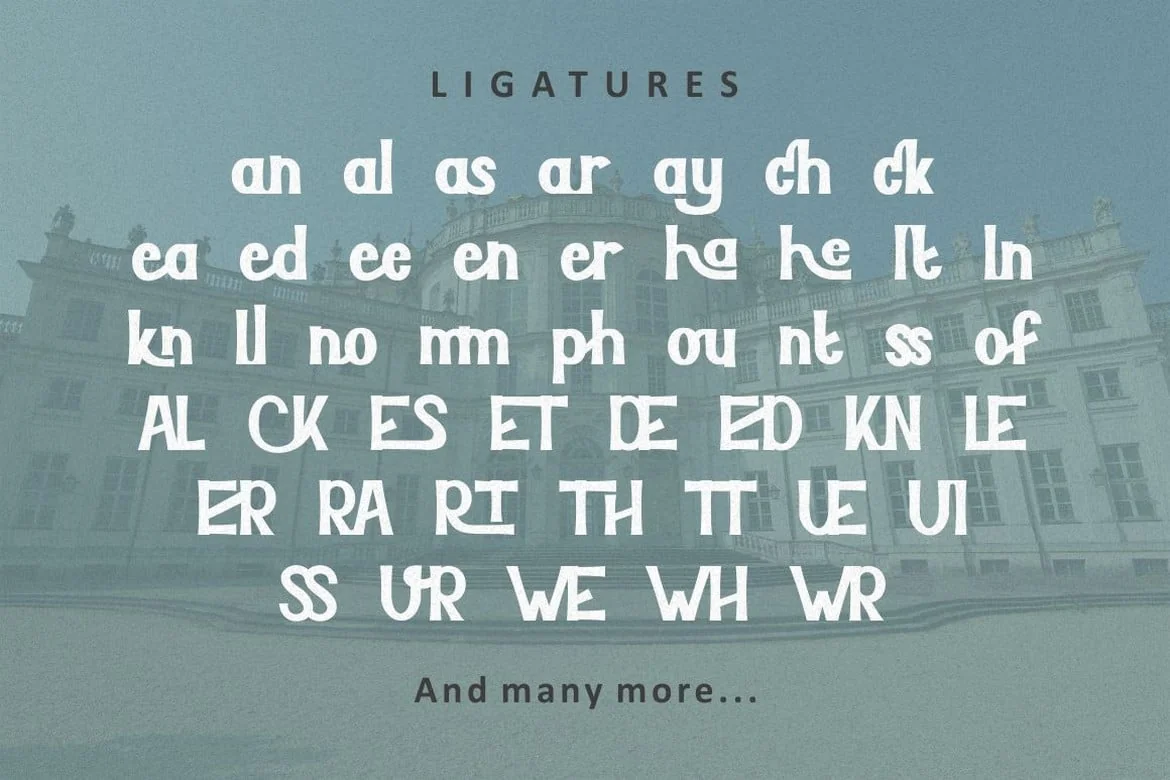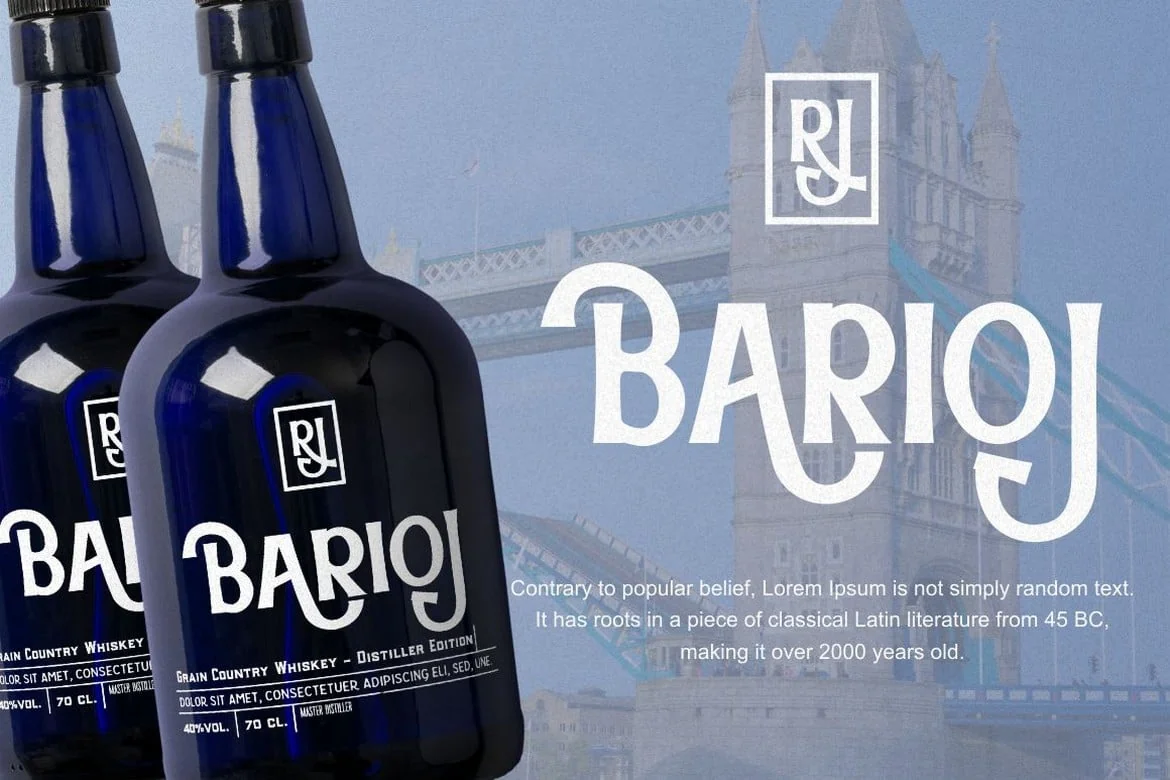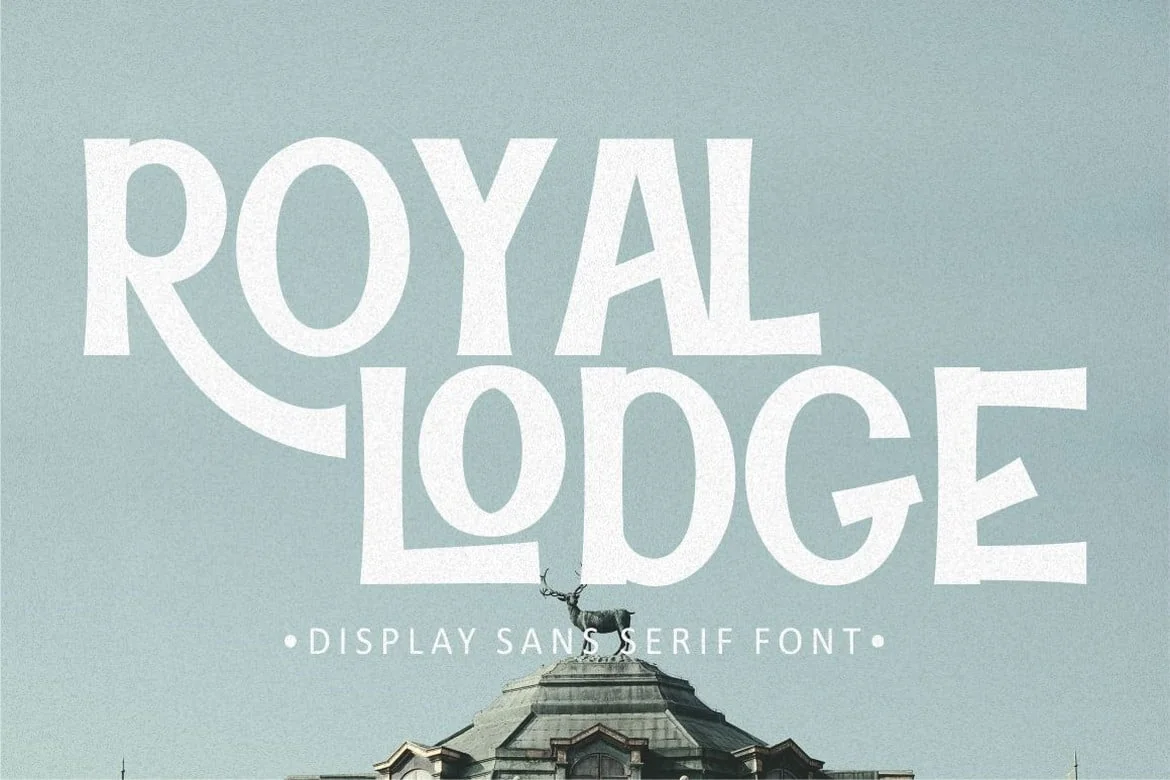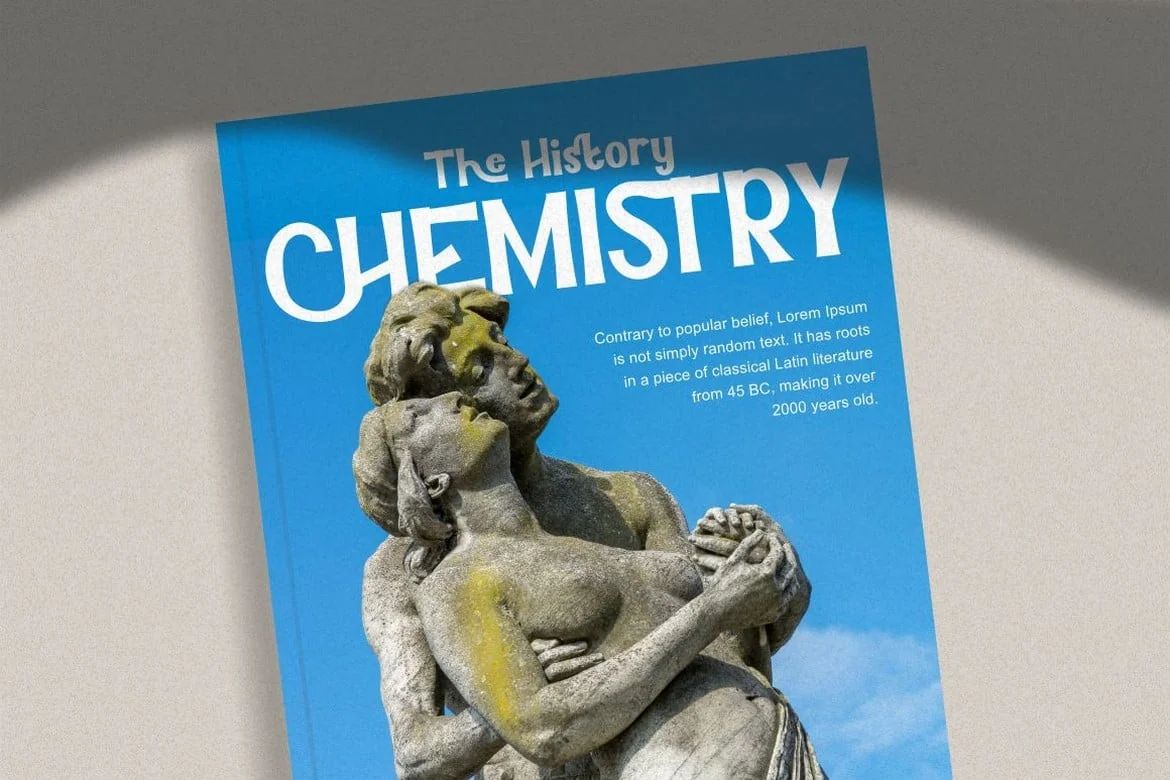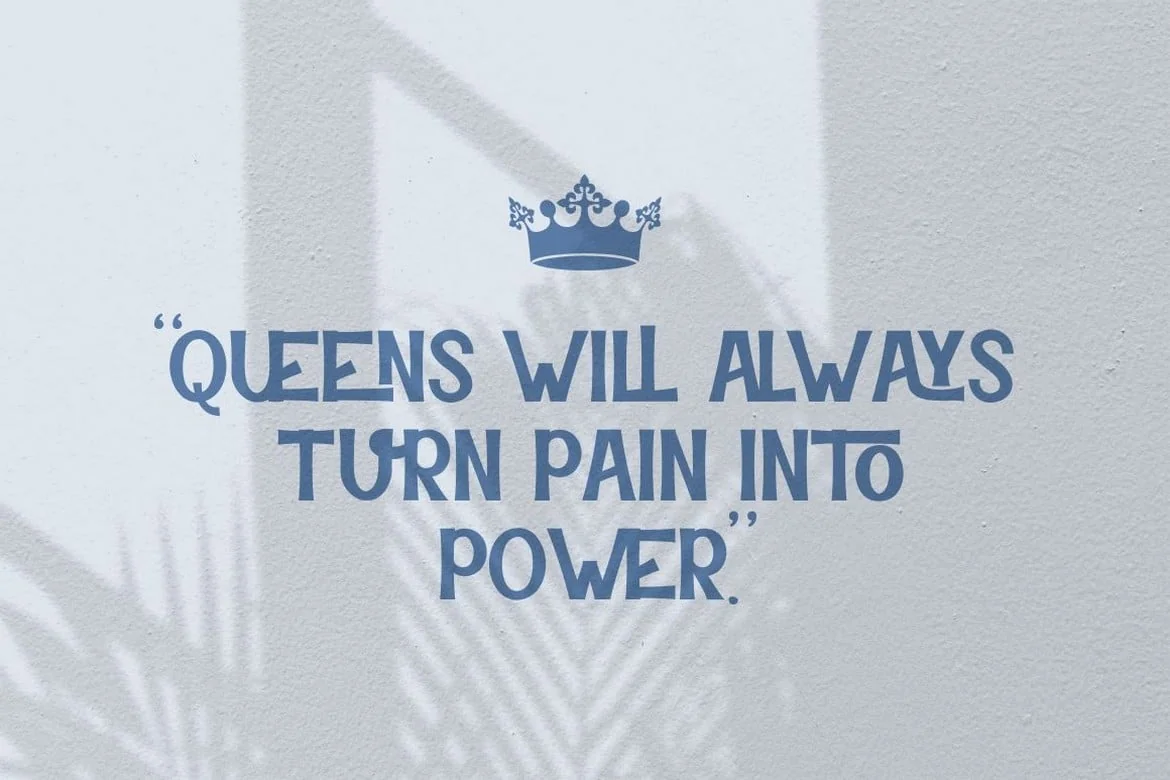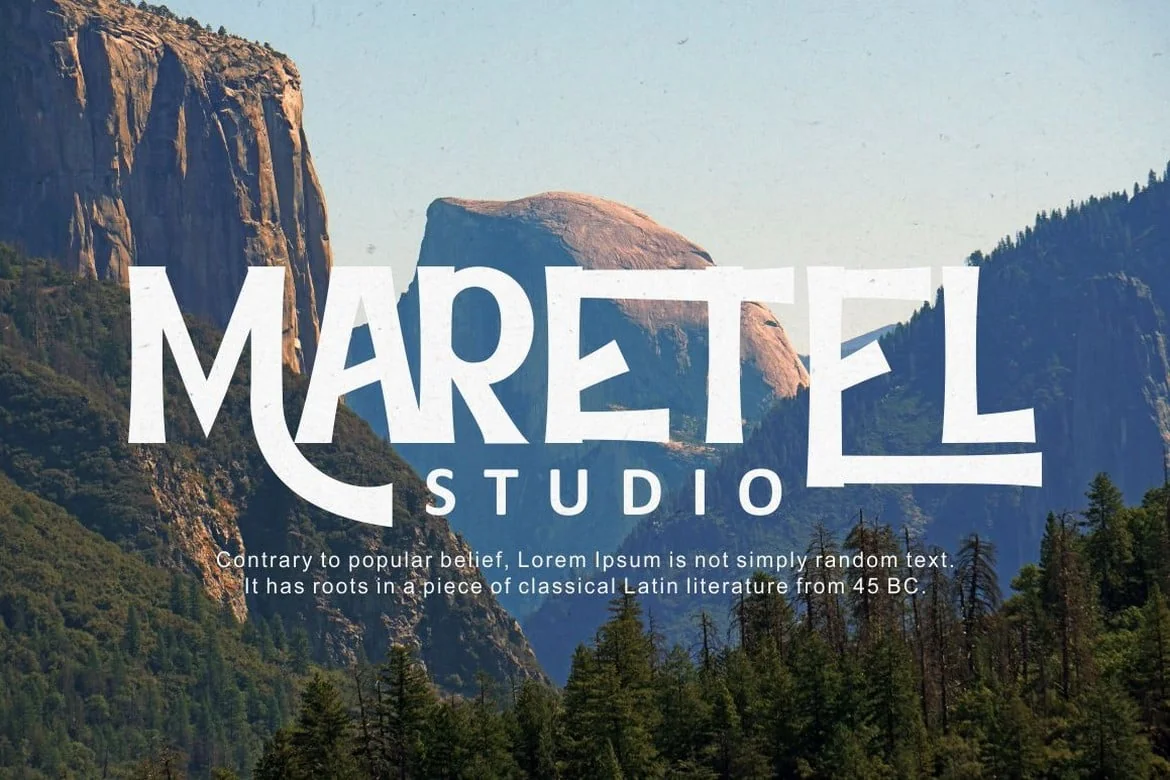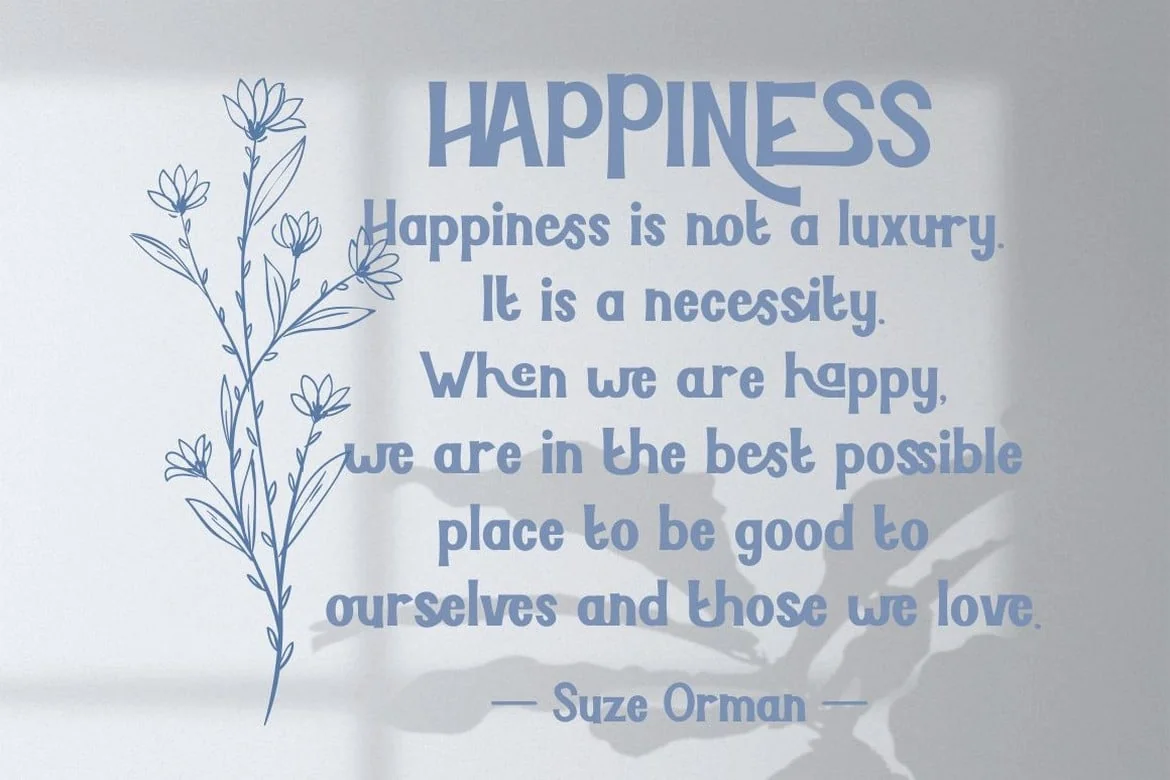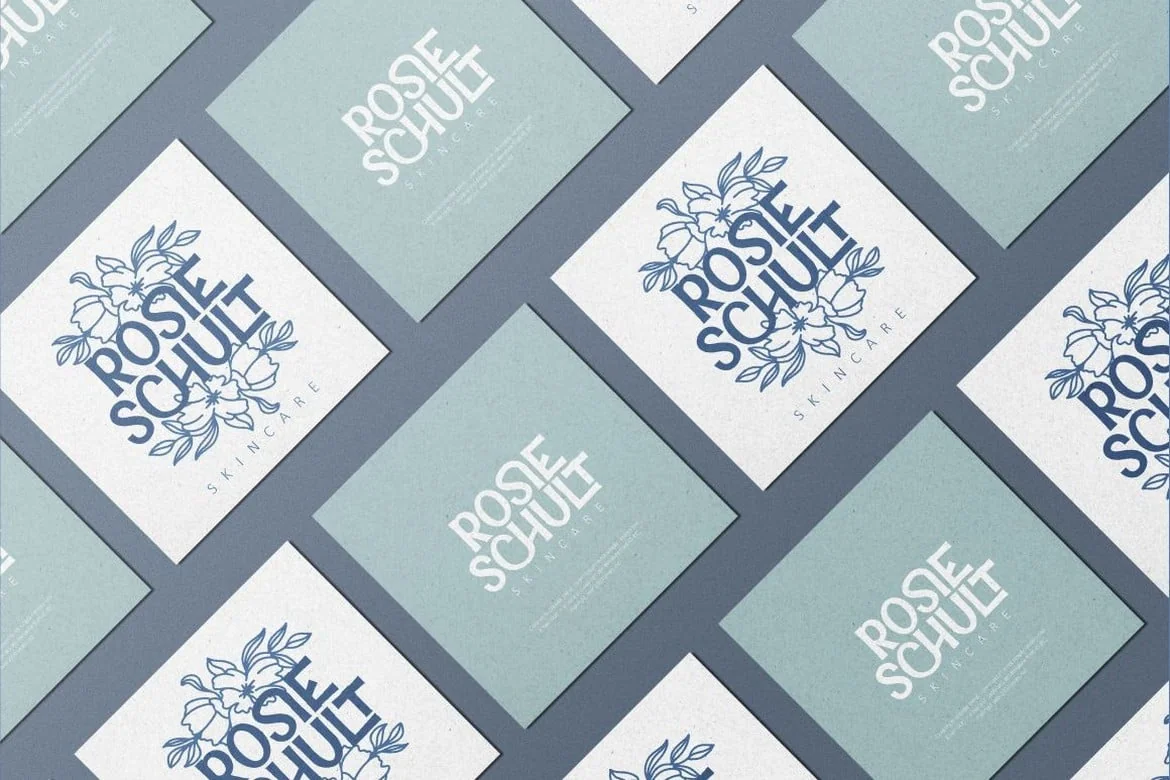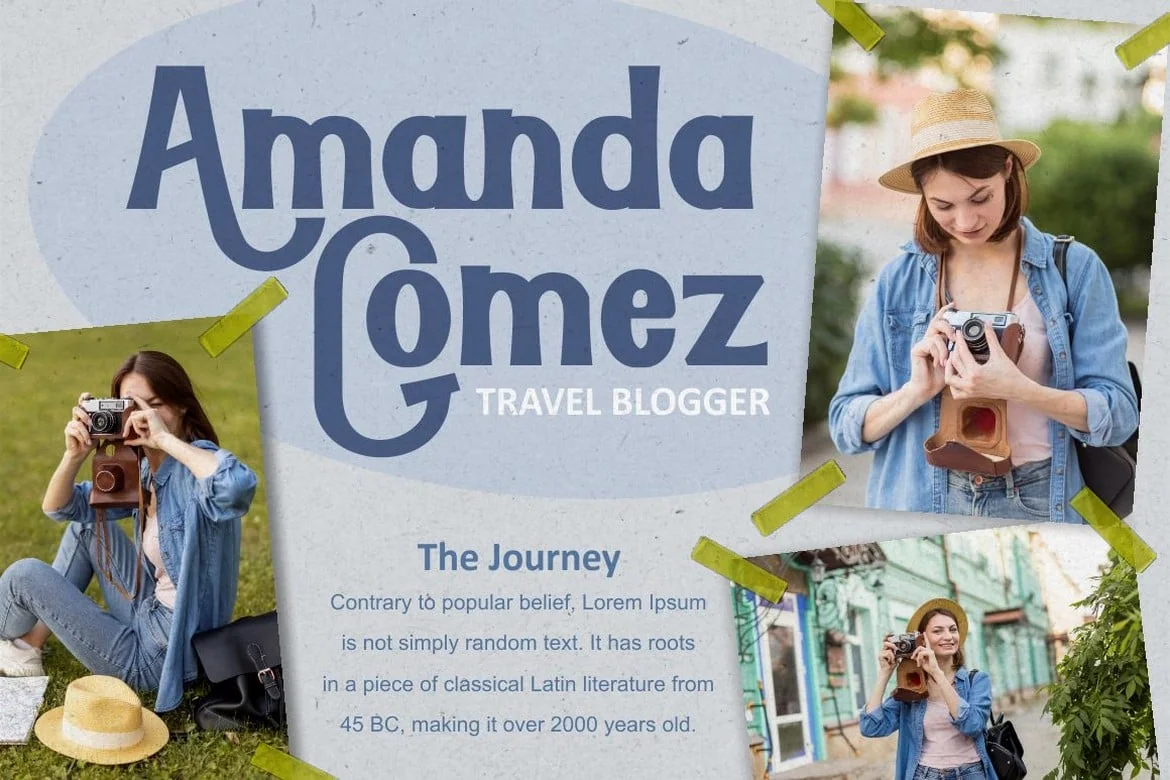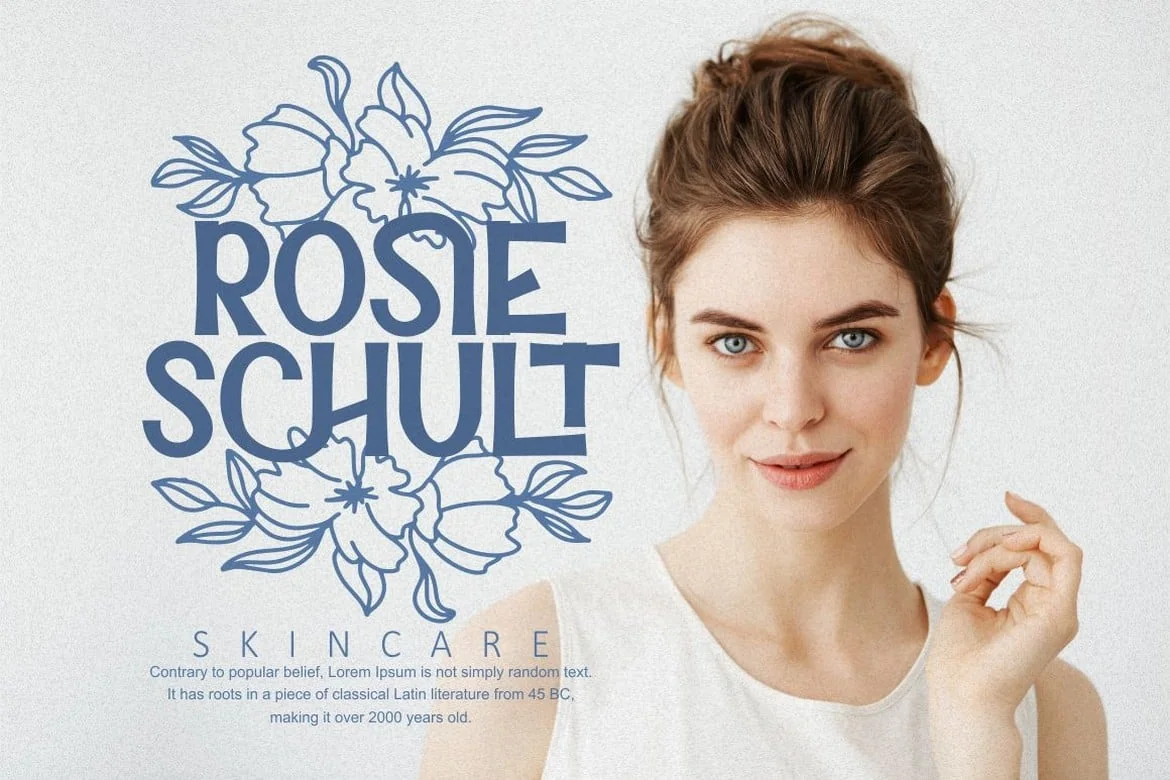
Royal Lodge – Display Sans Serif Font. Royal Lodge font makes for more fun, trendy and more lively. This font is inspired by the extra bold font style and well balanced curves.This font has a surprise from alternate that will make your work even more beautiful.
This font is perfect for a professional touch which makes it even more unique and classic. But this font is also suitable for logos, branding, greeting cards, invitation cards, advertisements, titles, headlines, book titles, stickers, packaging, quotes, posters, billboards and others.
The alternative characters were divided into several Open Type features such as Swash, Stylistic Sets, Stylistic Alternates, Contextual Alternates, and Ligature. The Open Type features can be accessed by using Open Type savvy programs such as Adobe Illustrator, Adobe InDesign, Adobe Photoshop Corel Draw X version, And Microsoft Word. This font is also support multi language.